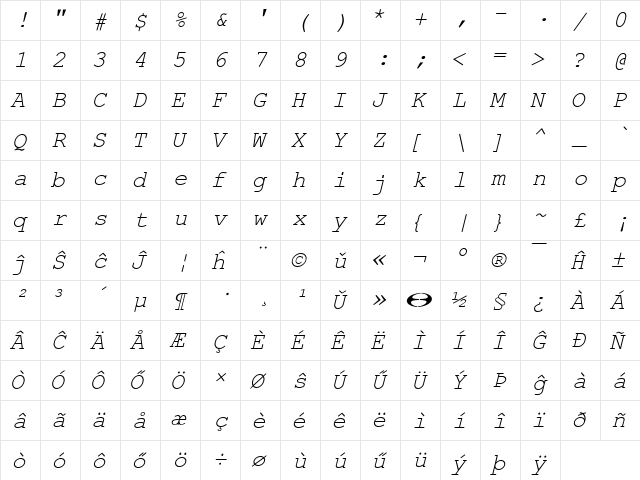
Kuriero Esperanto Kursiva
Design Context for Kuriero Esperanto Typeface
Kuriero Esperanto offers clean, dependable letterforms without strong stylistic allegiance, making it a practical choice for designers who need flexibility. Its italic angle brings a sense of urgency and motion to the letterforms.
Pro Tip: Try Kuriero Esperanto for annotation and caption copy alongside an upright companion — the contrast in angle creates a dynamic but ordered typographic system.